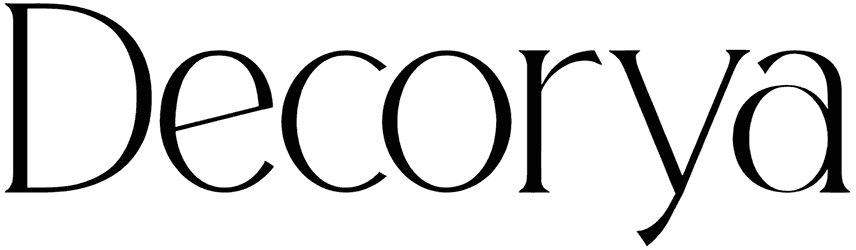
Decorya Font
Decorya font has that ornamental serif charm that makes a headline feel dressed before the rest of the design even shows up. Its decorative shapes bring a classy vintage mood, but there’s still enough balance in the letters to keep everything from looking too crowded. That’s the part designers secretly appreciate most.
Use it for boutique branding, perfume labels, book covers, wedding monograms, luxury packaging, café signs, or elegant poster titles that need more personality than a plain serif can offer. Pair Decorya font with warm paper, thin borders, muted gold, or floral line art, and the whole layout starts feeling carefully curated.